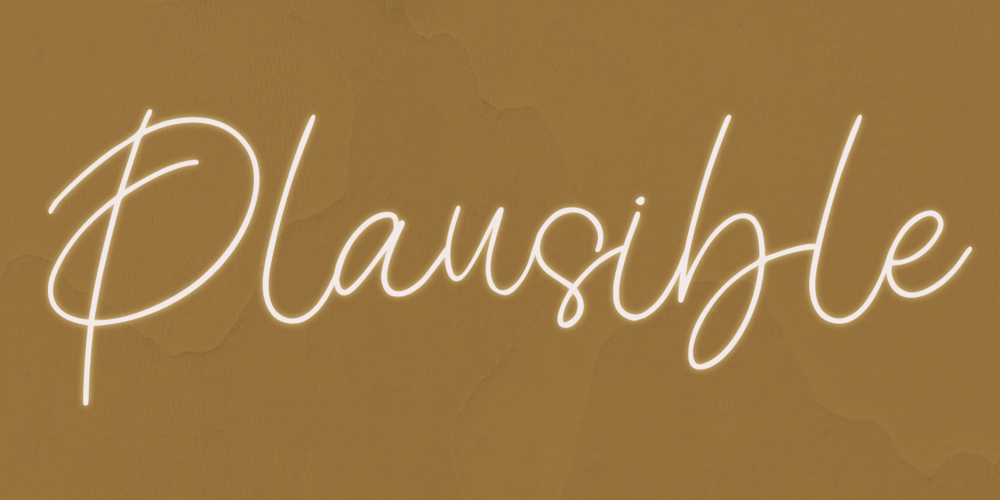
Plausible Font Family was designed by Irpan Maulana and published by Create Big Supply. Plausible contains 1 styles and family package options. Introducing Plausible, a captivating stylized handwritten font that adds elegance and charm to your designs. With its beautiful style and versatile features, Plausible is perfect for creating exquisite wedding invitations, stunning stationery art, eye-catching social media posts, and more. Let your imagination soar as you explore the creative possibilities with this remarkable font.Plausible offers a comprehensive set of features, including both uppercase and lowercase letters, numbers, and punctuations. Its multilingual support ensures seamless integration of various languages, allowing you to connect with a diverse global audience and communicate your message effectively. Whether you’re designing for personal projects or professional endeavors, Plausible provides the tools you need to create visually striking and impactful compositions.With PUA encoding, accessing the amazing glyphs and ligatures of Plausible is a breeze. These special characters add unique flourishes and connections, elevating the visual appeal of your text and giving it a personalized touch. The monoline style of Plausible enhances its sophistication, making it a versatile choice for a wide range of design applications.Unleash your creativity and make a lasting impression with Plausible. This font combines elegance and handcrafted beauty, allowing you to create designs that stand out from the crowd. Whether you’re a graphic designer, a creative professional, or an enthusiast, Plausible is the perfect addition to your font collection, offering endless possibilities for captivating and memorable designs.